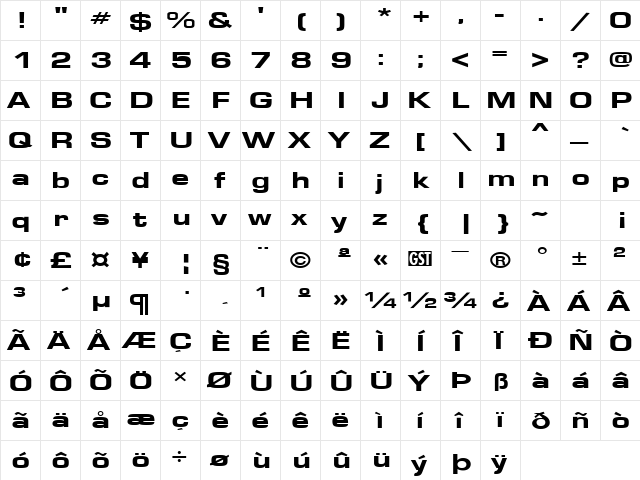
Eurose Wide-Heavy normal
Design Context for Eurose Wide-Heavy Typeface
Eurose Wide-Heavy takes a measured approach to typography — its balanced proportions and neutral character make it a reliable workhorse for both digital and print work.